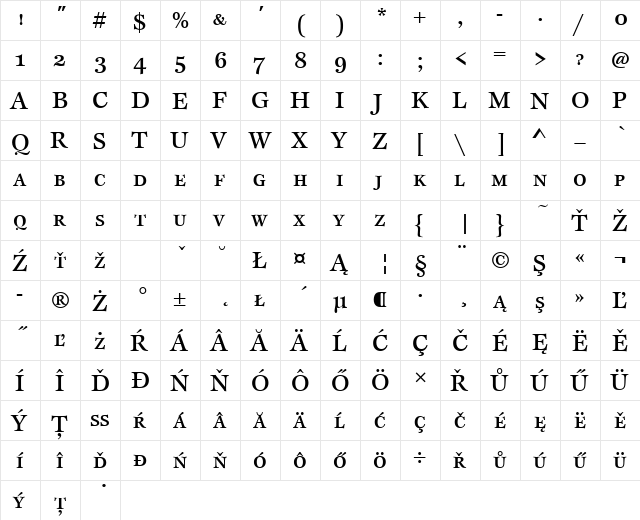
EspritSCItcTEEMed Regular
Design Context for EspritSCItcTEEMed Typeface
EspritSCItcTEEMed is a composed and adaptable typeface that performs quietly and consistently across a wide range of design contexts.